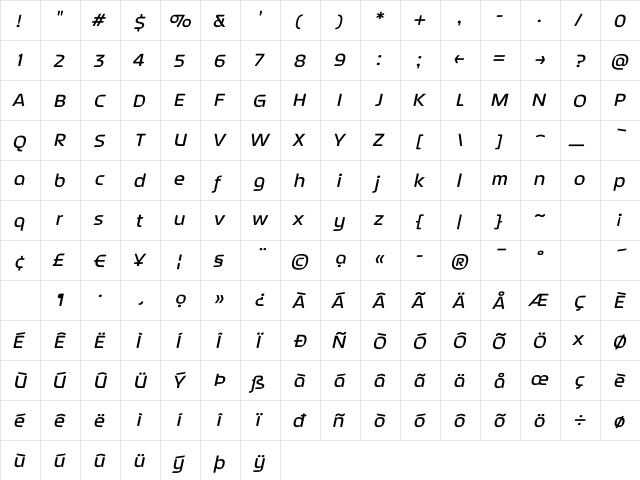
SeptemberMedium Italic Regular
Design Context for SeptemberMedium Italic Typeface
SeptemberMedium Italic offers clean, dependable letterforms without strong stylistic allegiance, making it a practical choice for designers who need flexibility. The dynamic lean of this cut emphasises speed and emphasis in any layout.